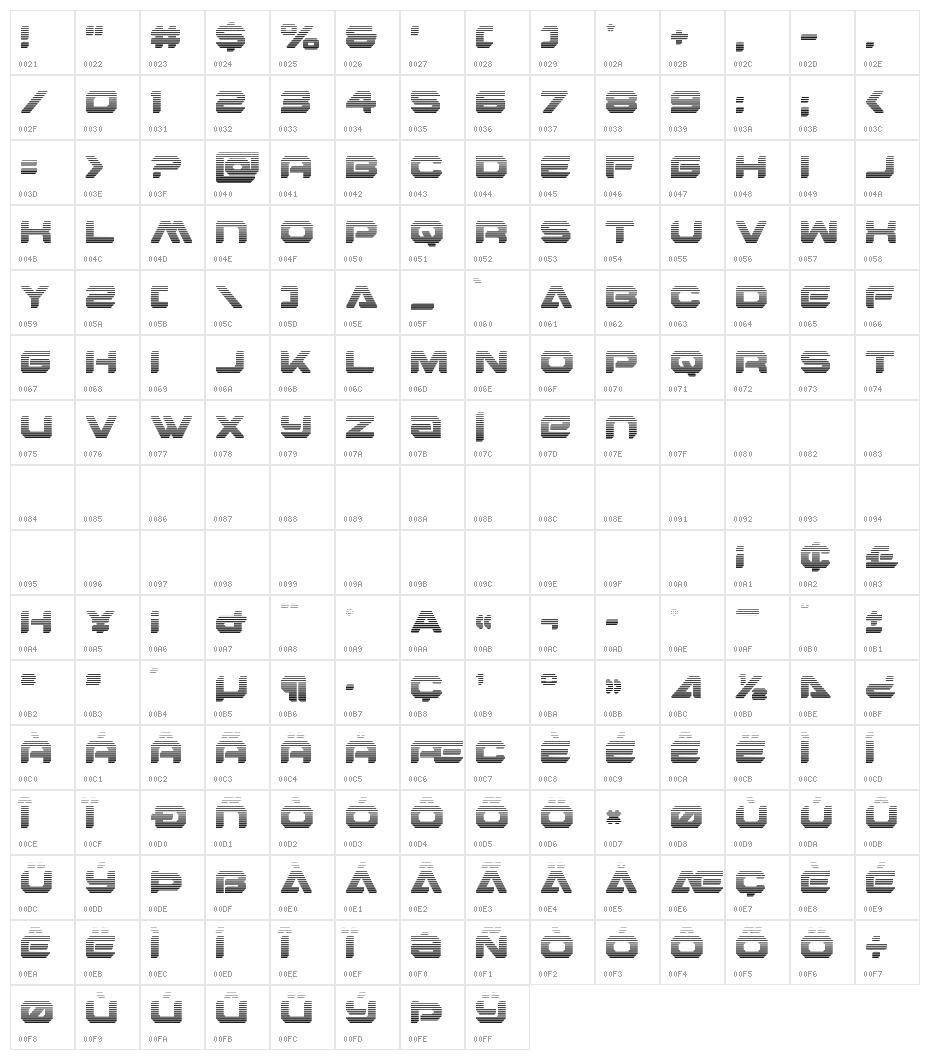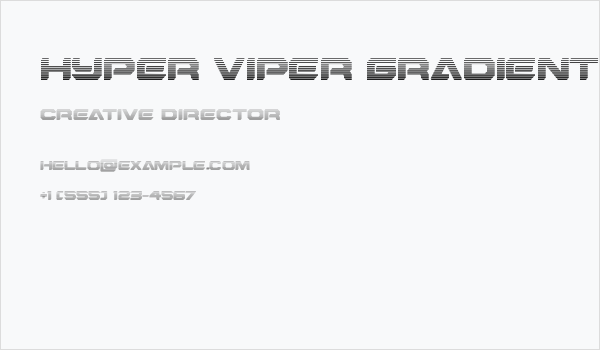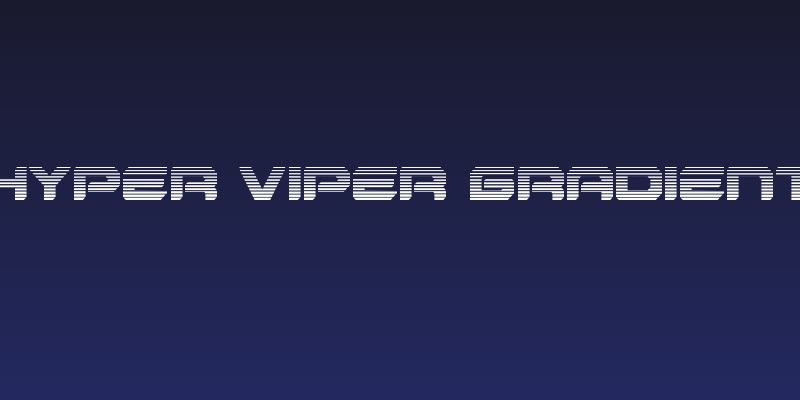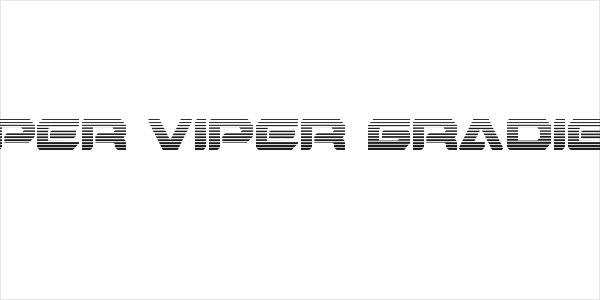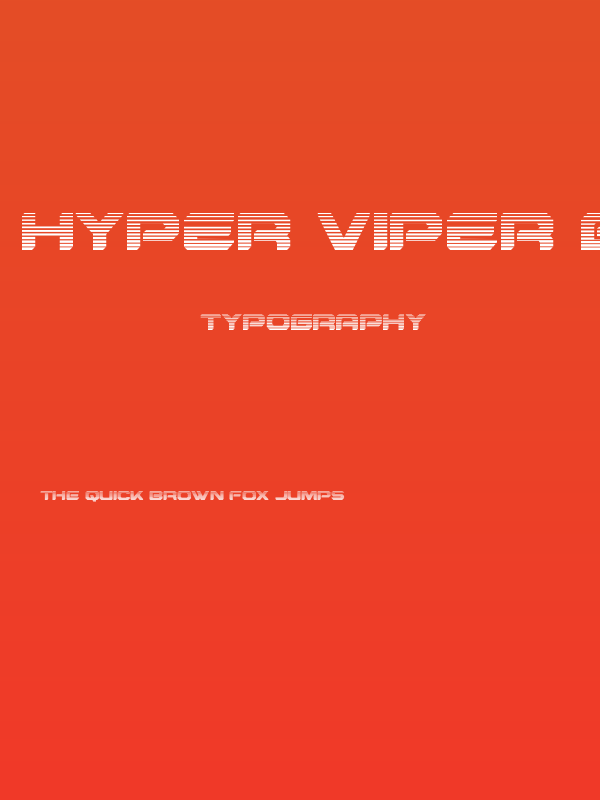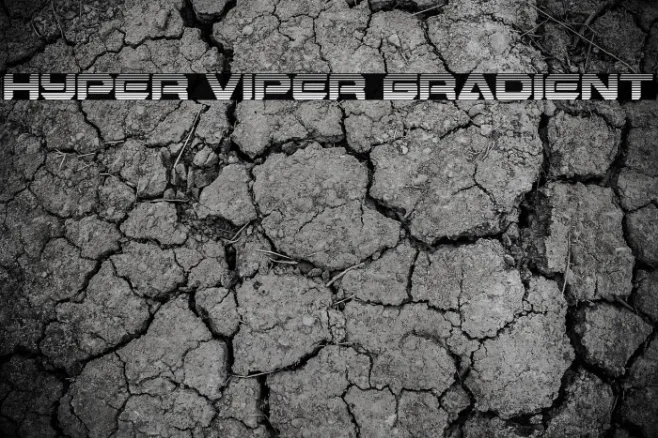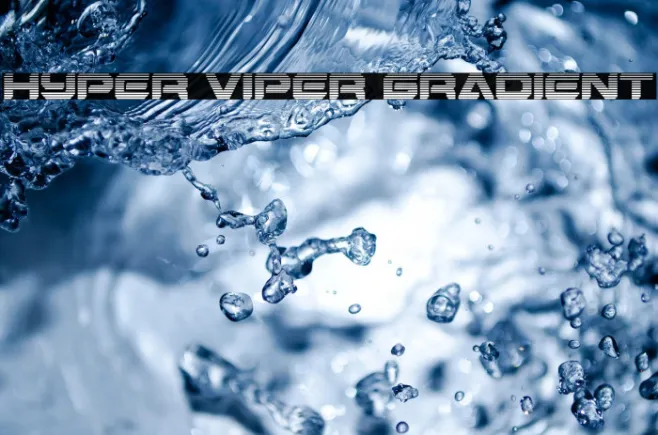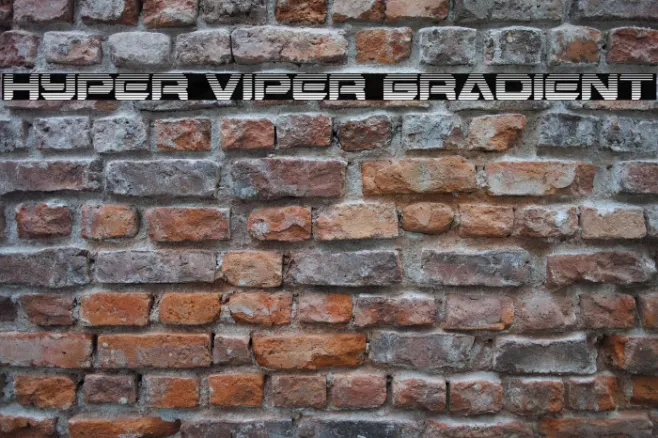
Hyper Viper Gradient Font
Hyper Viper Gradient Description
This font features a bold, futuristic design with a gradient effect created by horizontal lines running through each character. The uppercase letters are structured with sharp angles and clean lines, giving a sense of speed and modernity. The lowercase letters maintain the same aesthetic, ensuring consistency across different text cases. Numbers and special characters are designed with the same attention to detail, making them easily recognizable while maintaining the overall style. The font's unique appearance is ideal for projects that require a modern, tech-inspired look.
| Proposed Projects | Ideal for technology branding, video game titles, sci-fi movie posters, and modern digital interfaces. |